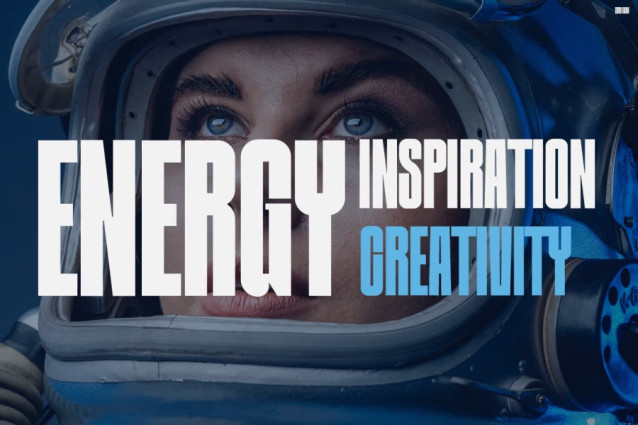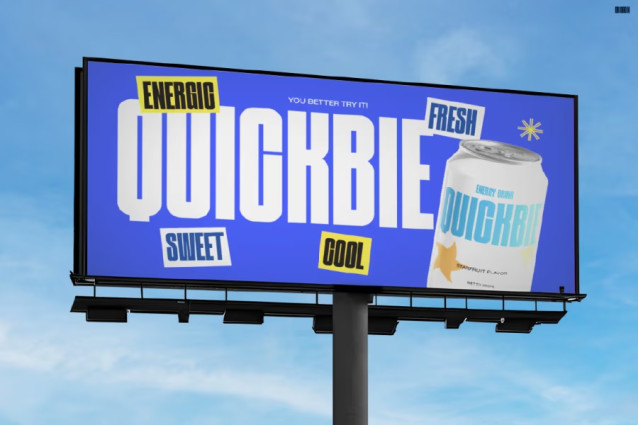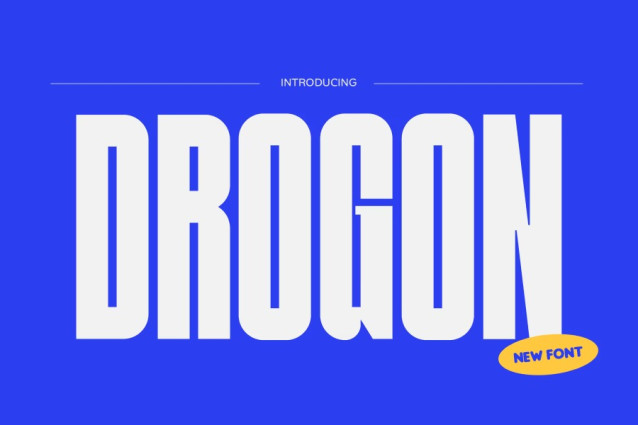
Drogon Font is a modern, strong, and eye-catching typeface that radiates power in every letter. Its tall, condensed shapes and bold edges create a stunning visual impact, perfect for designs that demand attention. With its perfect balance of strength and style, DROGON brings a new dimension of confidence to your typography.
This font blends geometric precision with a sleek, futuristic tone. The result is a typeface that feels both professional and dynamic. Moreover, its tight spacing and clean structure make every word look sharp and expressive. Whether you’re creating social media quotes, sports branding, or magazine headlines, Instagram Font DROGON turns your message into a statement of power and ambition.
While many fonts fade into the background, DROGON was designed to dominate the spotlight. Its bold uppercase forms and stylish contrasts ensure maximum readability and visual rhythm. As a result, your designs will always stand tall—modern, confident, and ready to inspire.
Perfect For :
Instagram Font DROGON is ideal for creators who want to make bold and unforgettable designs. It fits perfectly for:
Social media graphics that need modern, confident lettering.
Posters, magazine covers, and ads that highlight strength and ambition.
Sports branding and fitness promotions that emphasize power and energy.
Music, streetwear, or tech visuals that express modern urban style.
Fashion campaigns and product packaging that crave bold and minimal typography.
Moreover, DROGON works great for digital and print projects alike. Designers, marketers, and influencers love its versatile yet striking character. It helps build brand identity and consistency while keeping every visual strong and clear.
When paired with minimal layouts or vibrant colors, Instagram Font DROGON creates an unforgettable design that communicates confidence, speed, and creativity.
Make Your Message Unstoppable
Step up your visuals with the unstoppable force of Instagram Font DROGON. It’s not just a typeface—it’s a statement of confidence and drive. So, if you want your designs to command attention and leave a lasting impression, DROGON is your perfect choice. Own the boldness. Elevate your brand. Let your message roar with style and power!